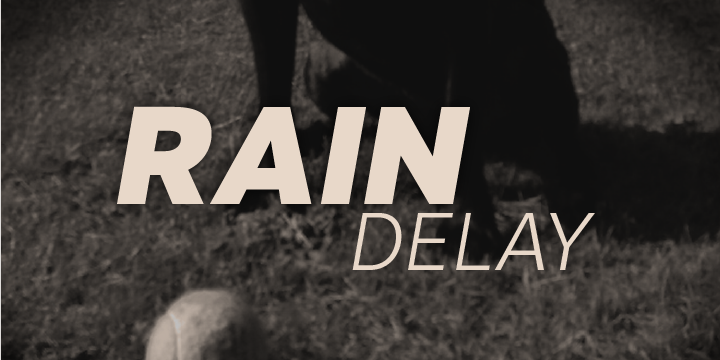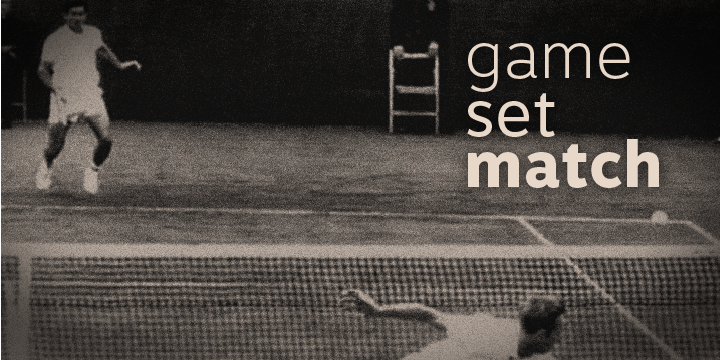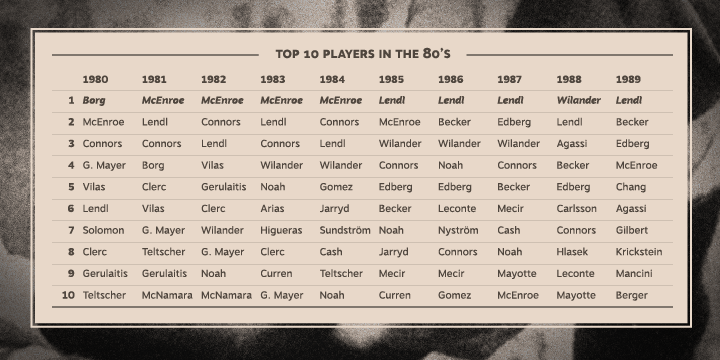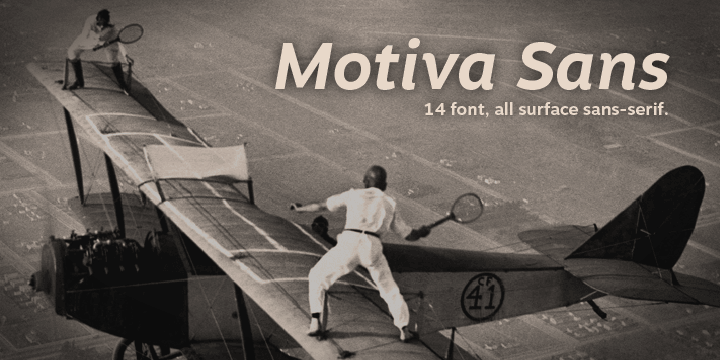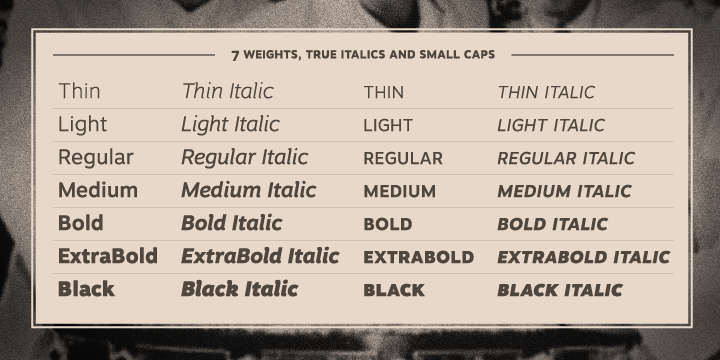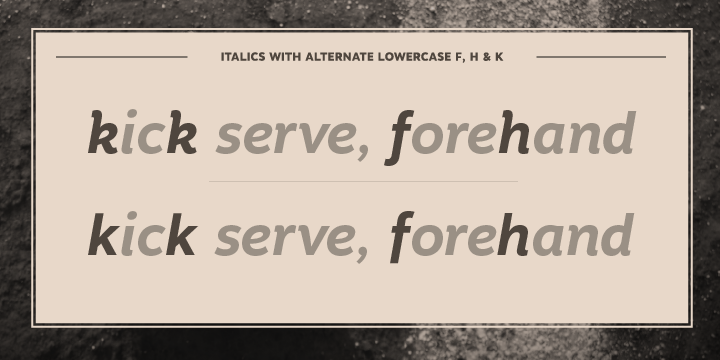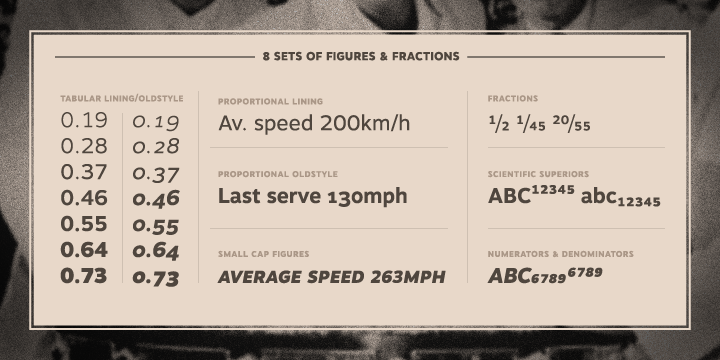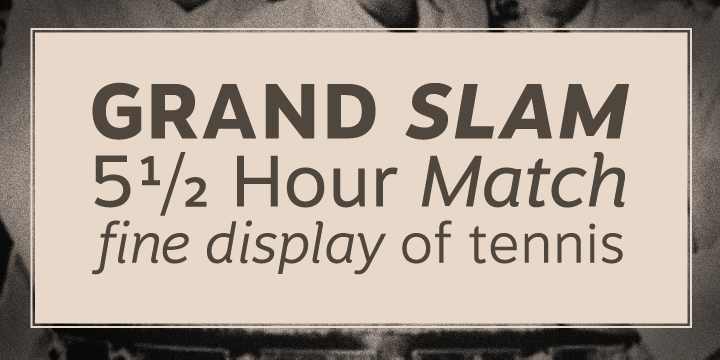
Motiva Sans is a sans serif font family. This typeface has fourteen styles and was published by Plau.
Motiva Sans is a clean sans serif with true italics. Sporting Light, Regular and Bold weights, it comes with essential Open Type features such as small caps, caps to small caps, tabular, lining, oldstyle figures, fractions as well as extended language support.
It performs well in printed and digital environments. The italics are more cursive than the average sans serif design and provide very good contrast to the their roman counterparts.